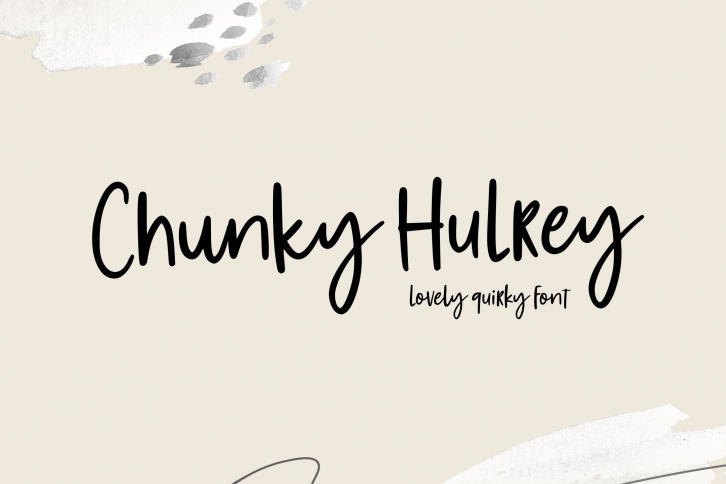
Chunky Hulrey is a gorgeous font that was realeased on July 13, 2021. The font can be used in many style contexts and design environments. Perfect for invitations, magazines, websites, logos, and more! It was designed by Allouse Studio and the file size is 20.87 MB. Thanks for checking out this font!